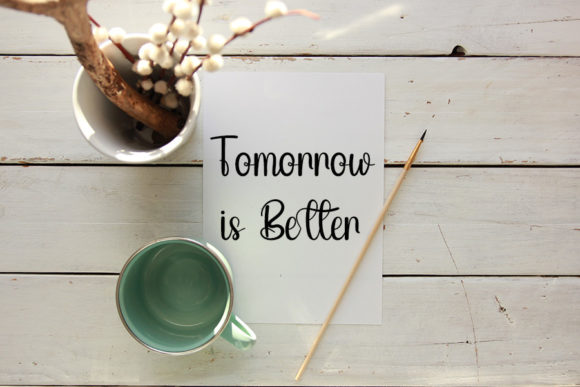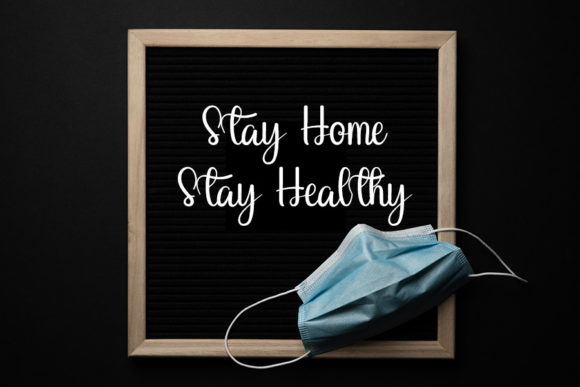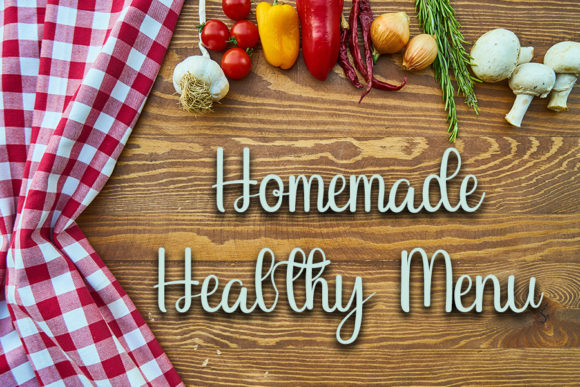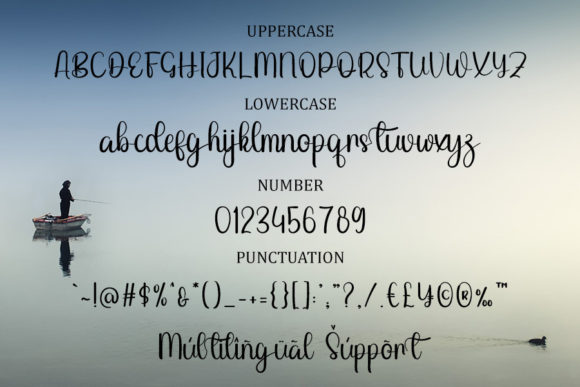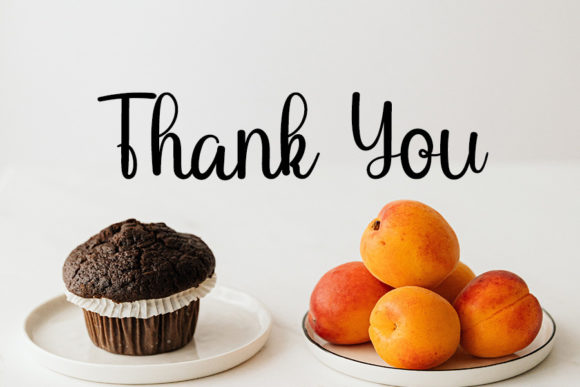
Introducing Hanukkah Font: The Perfect Choice for Creative Designs
Are you a designer or crafter looking for a unique and eye-catching font to elevate your creative projects? Look no further than Hanukkah Font, a playful and smart-looking handwritten font that’s perfect for creating stunning logos, branding, and quotes.
What Makes Hanukkah Font Special?
Hanukkah Font is a one-of-a-kind font that boasts a distinctive and beautiful touch. Every letter is carefully crafted to add a personal and artistic feel to your designs. The font’s unique characteristics make it an ideal choice for designers and crafters who want to add a touch of elegance and sophistication to their work.
Key Features of Hanukkah Font
- Playful and Smart-Looking: Hanukkah Font has a playful and intelligent appearance that will make your designs stand out from the crowd.
- Handwritten Style: The font’s handwritten style adds a personal and artistic touch to your designs, making them more engaging and relatable.
- Unique Lettering: Every letter in Hanukkah Font has a unique and beautiful design, ensuring that your text won’t look generic or boring.
- Elegant and Sophisticated: The font’s elegant and sophisticated design makes it perfect for creating high-end logos, branding, and quotes.
Hanukkah Font is an excellent choice for designers and crafters who want to create stunning visual content. Whether you’re designing a logo, creating a brand identity, or crafting a quote, this font is sure to impress. Its versatility and uniqueness make it suitable for a wide range of design projects, including:
- Logos and Branding: Create eye-catching logos and branding materials that reflect your brand’s personality and values.
- Quotes and Typography: Design inspiring quotes and typography that showcase your creativity and style.
- Social Media Graphics: Create engaging social media graphics that grab attention and drive engagement.
- Digital and Print Materials: Use Hanukkah Font in digital and print materials, such as brochures, flyers, and business cards, to add a touch of elegance and sophistication.
Tips for Using Hanukkah Font Effectively
To get the most out of Hanukkah Font, here are some tips to keep in mind:
- Experiment with Colors: Try pairing Hanukkah Font with different colors to create unique and eye-catching designs.
- Play with Sizes: Experiment with different font sizes to add emphasis and create visual hierarchy.
- Mix and Match: Combine Hanukkah Font with other fonts to create interesting and dynamic designs.
- Keep it Simple: Don’t overcomplicate your design. Keep it simple and let Hanukkah Font’s unique style shine through.